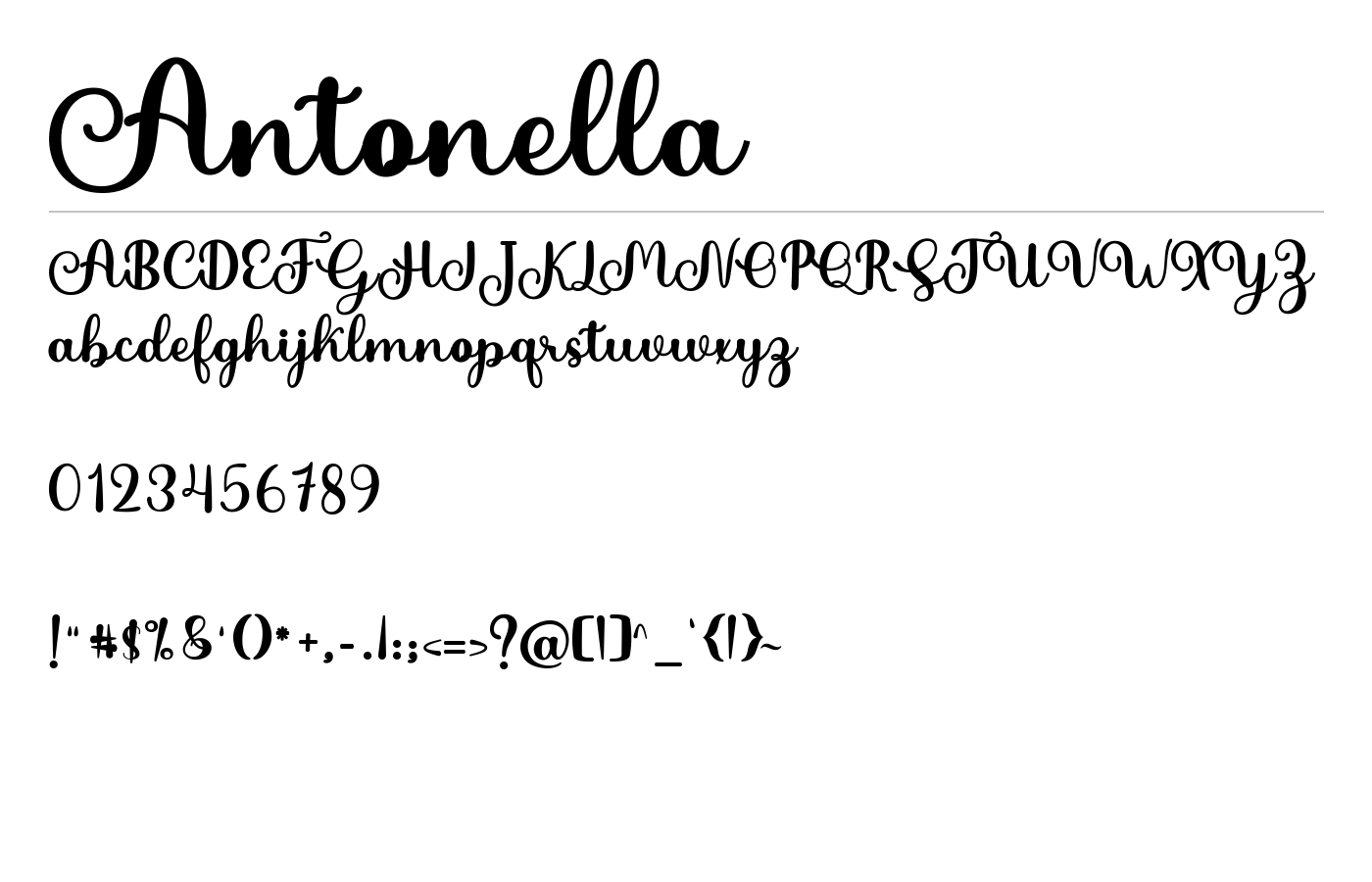
Antonella is a charming script font with smooth, connected letterforms and playful curls that give it a friendly, elegant feel. Its medium weight and balanced contrast make it perfect for inviting headlines, branding, and creative projects that seek a whimsical yet sophisticated touch. This font works especially well for invitations, logos, and packaging that want to convey warmth and personality.
Antonella Font